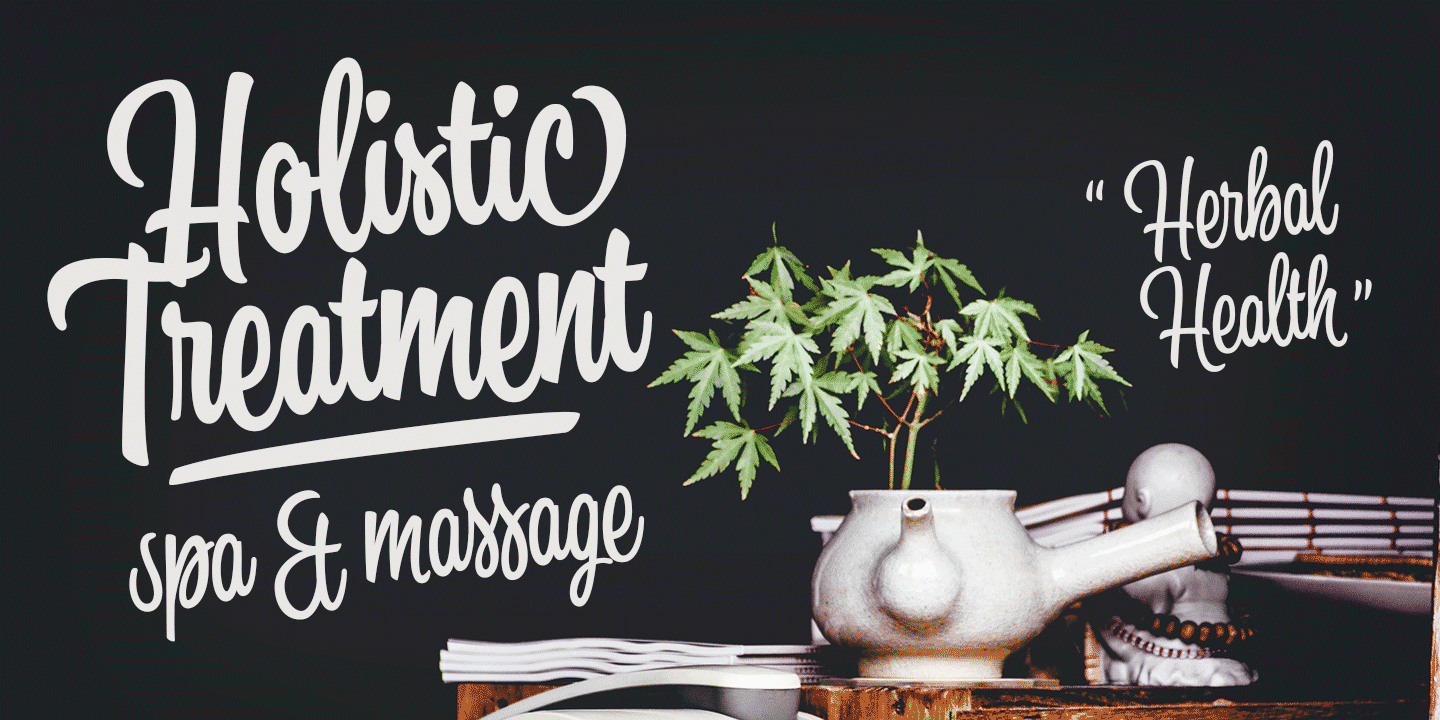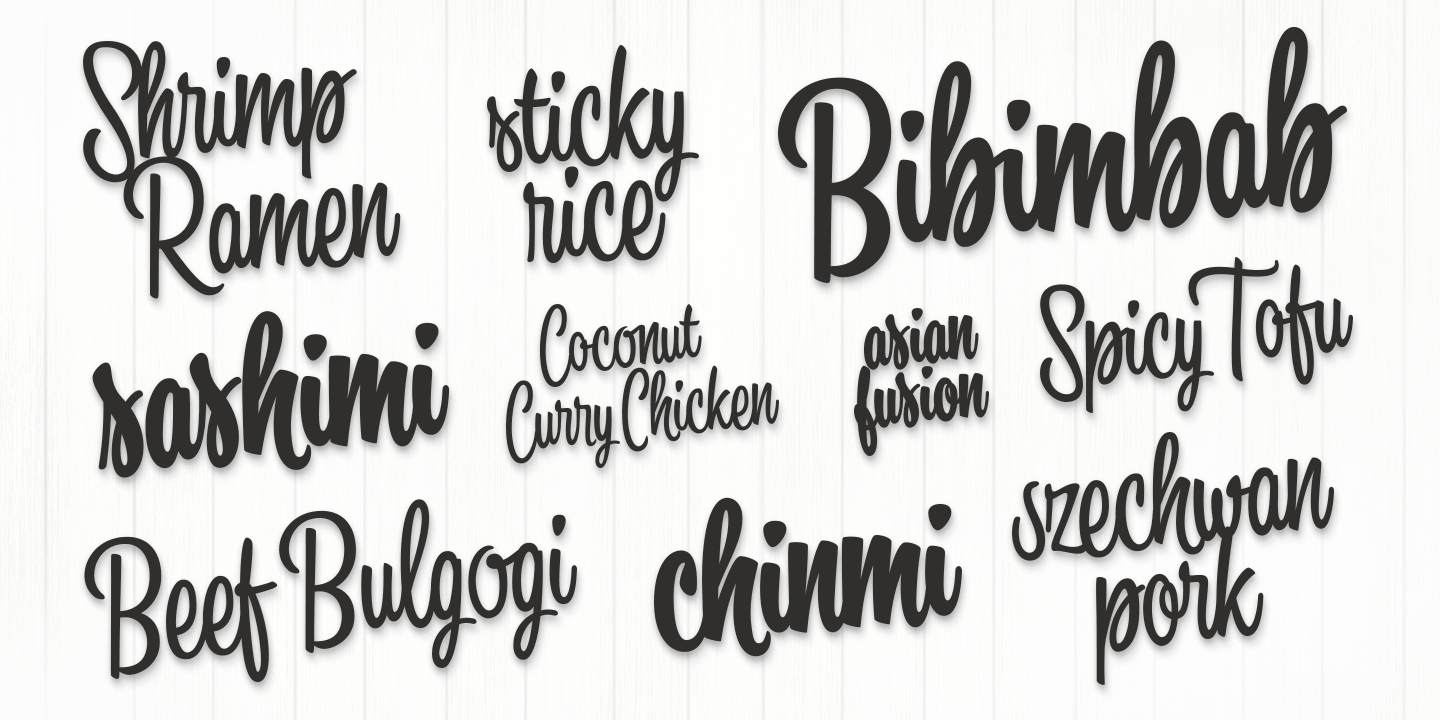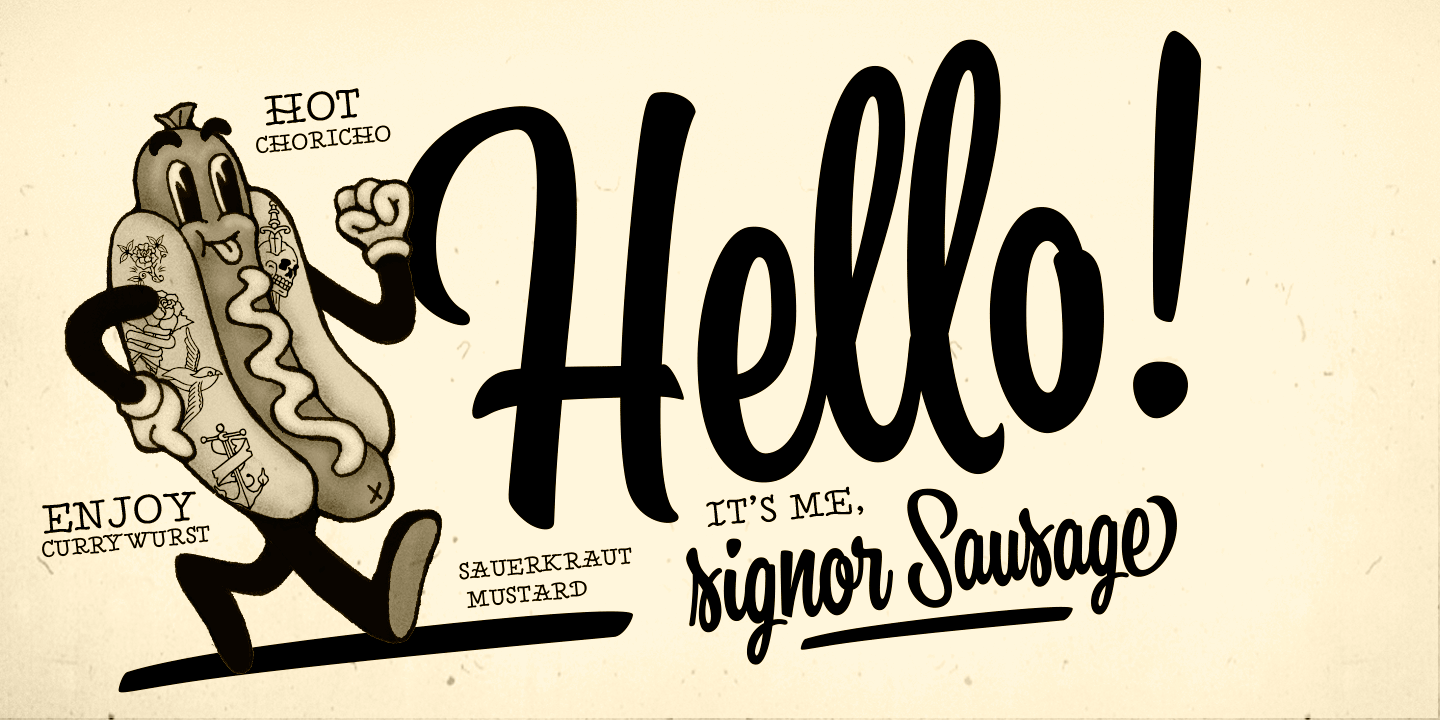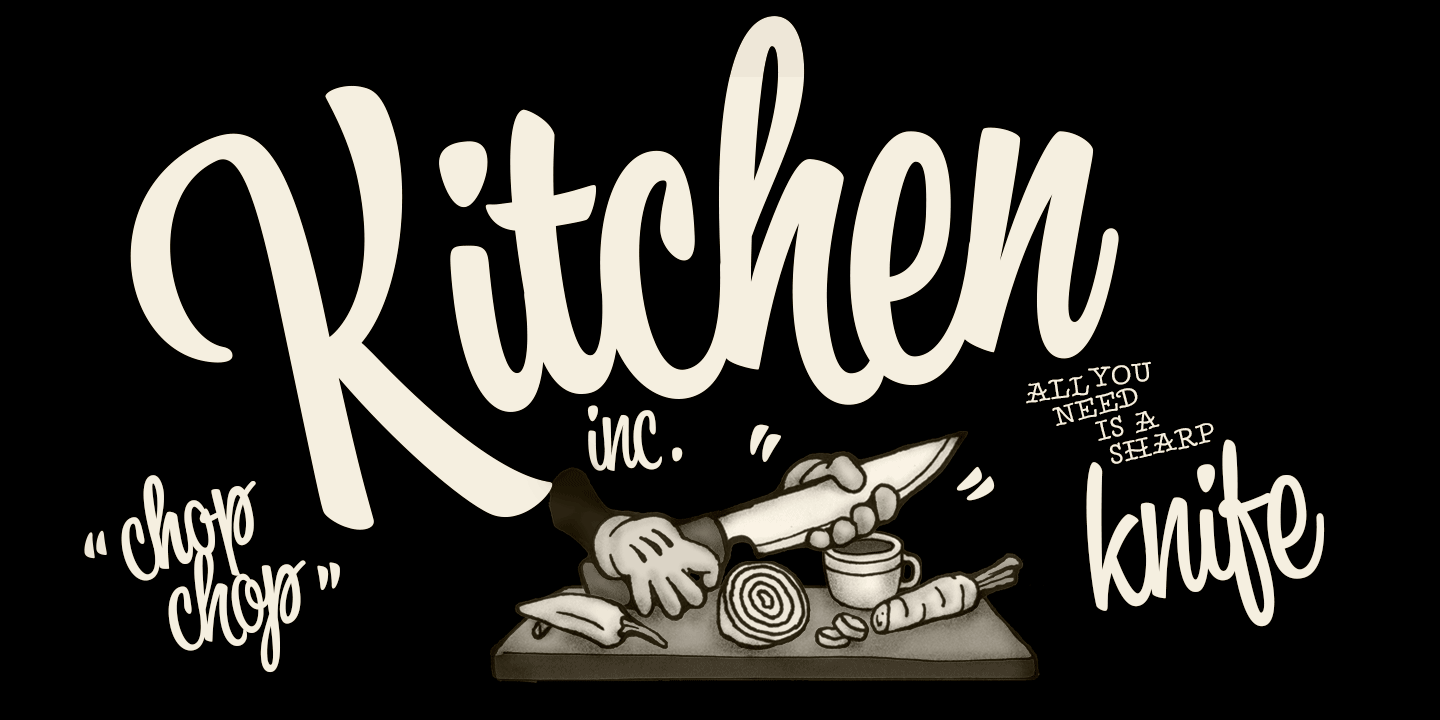
Kitchen Family (3 fonts)
Kitchen is an outstanding display font that works great for any display use from branding to packaging to logotype.
OpenType features: Ligatures, Alternates, Contextual Alternates, Swash